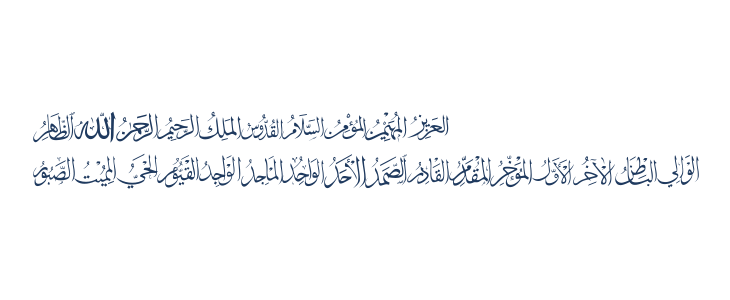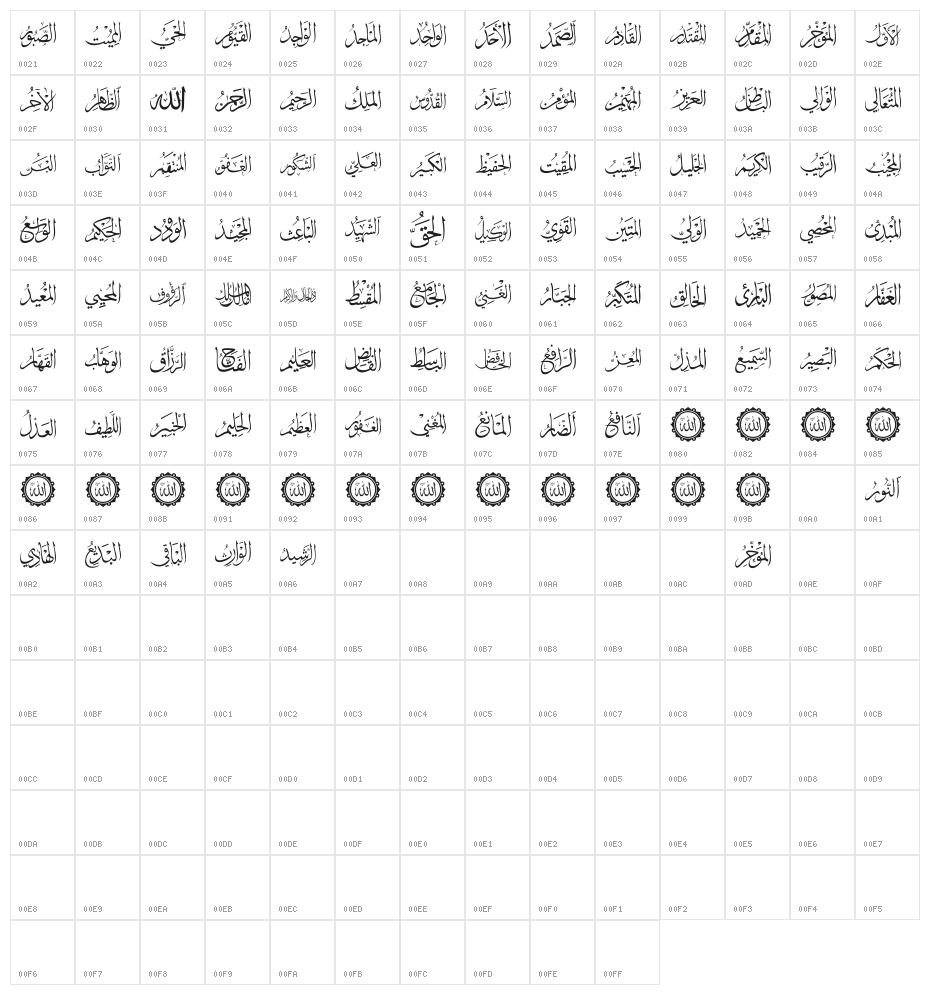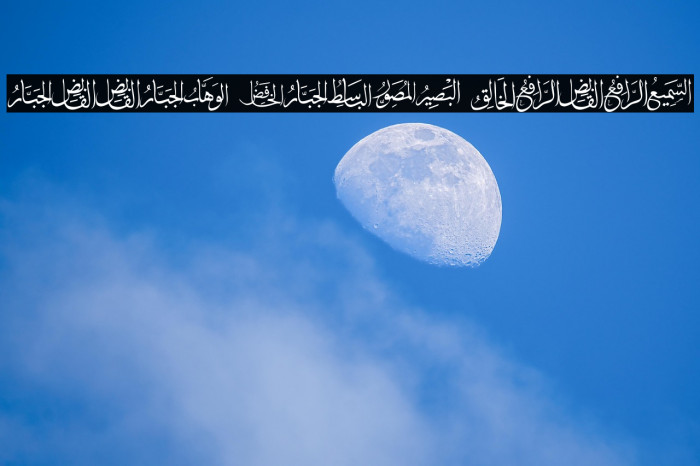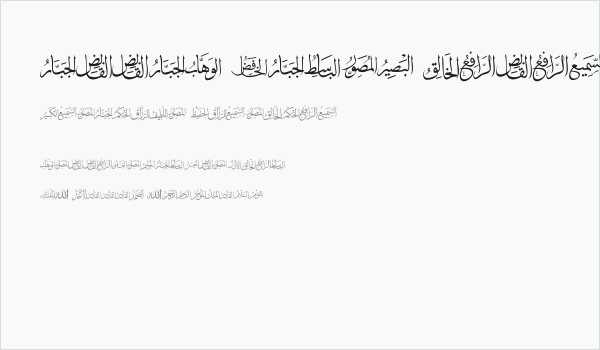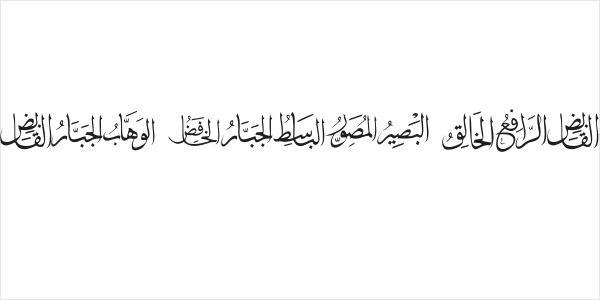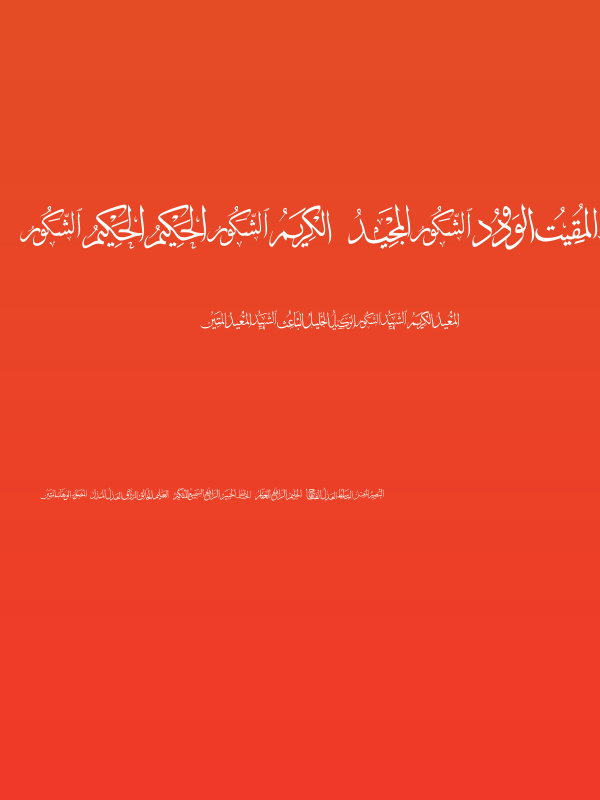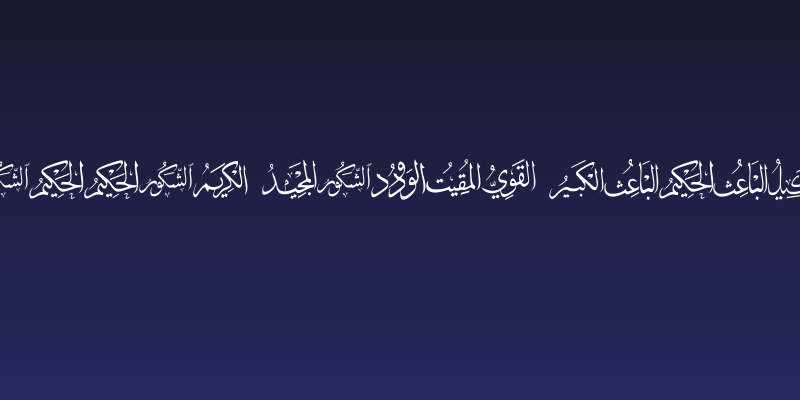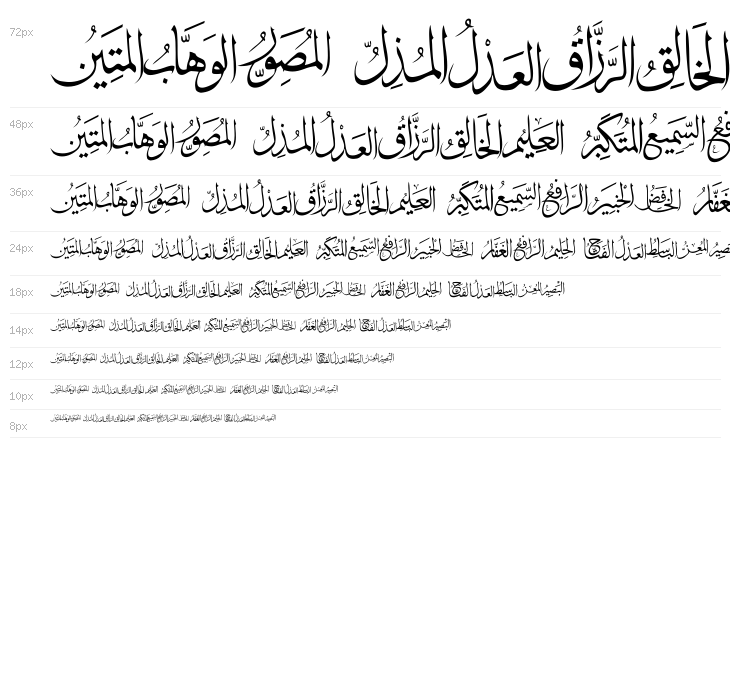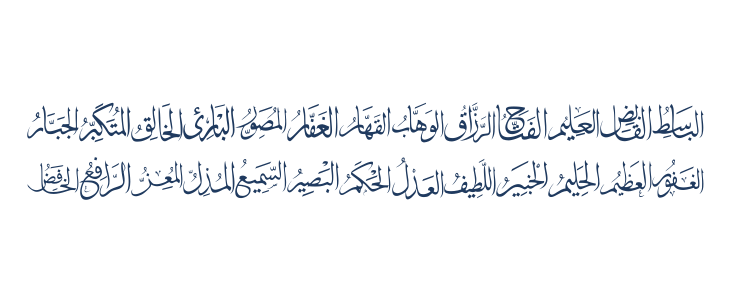
allah names color Font
allah names color Description
This font is a beautifully crafted Arabic script that exudes elegance and sophistication. The characters are intricately designed with a flowing, cursive style that captures the essence of traditional Arabic calligraphy. The strokes are smooth and fluid, with a harmonious balance between thick and thin lines, creating a visually appealing contrast. The font maintains a consistent baseline, ensuring readability while preserving the artistic flair typical of Arabic scripts. The ligatures and diacritical marks are seamlessly integrated, enhancing the overall aesthetic without compromising clarity. This font is ideal for projects that require a touch of cultural authenticity and artistic expression.
Overall StyleClassic
Use CaseHeadlines, Religious texts, Cultural publications
Proposed ProjectsIdeal for religious texts, cultural publications, artistic projects, and branding that seeks an authentic Arabic touch.